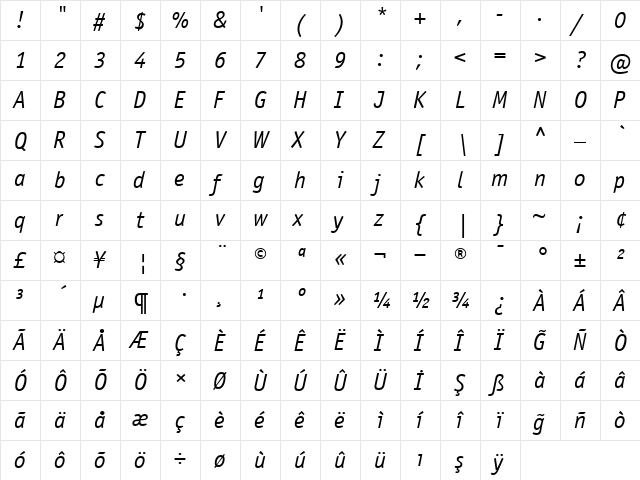
OfficinaSansBookItalic Regular
Design Context for OfficinaSansBookItalic Typeface
OfficinaSansBookItalic offers clean, dependable letterforms without strong stylistic allegiance, making it a practical choice for designers who need flexibility. The dynamic lean of this cut emphasises speed and emphasis in any layout.
Pro Tip: Use OfficinaSansBookItalic for emphasis, pull quotes, and subheadings where its slanted energy can add rhythm to the layout.